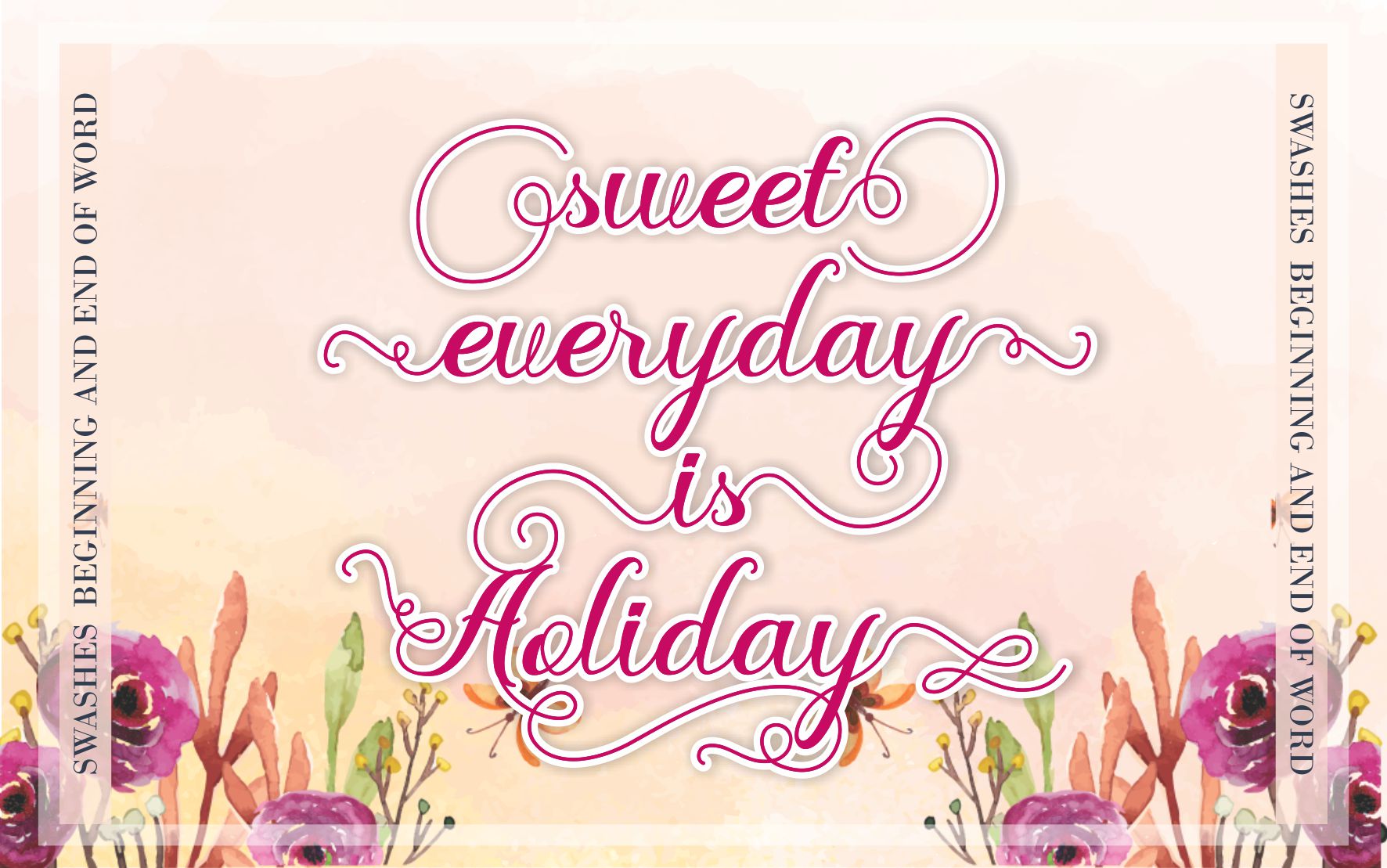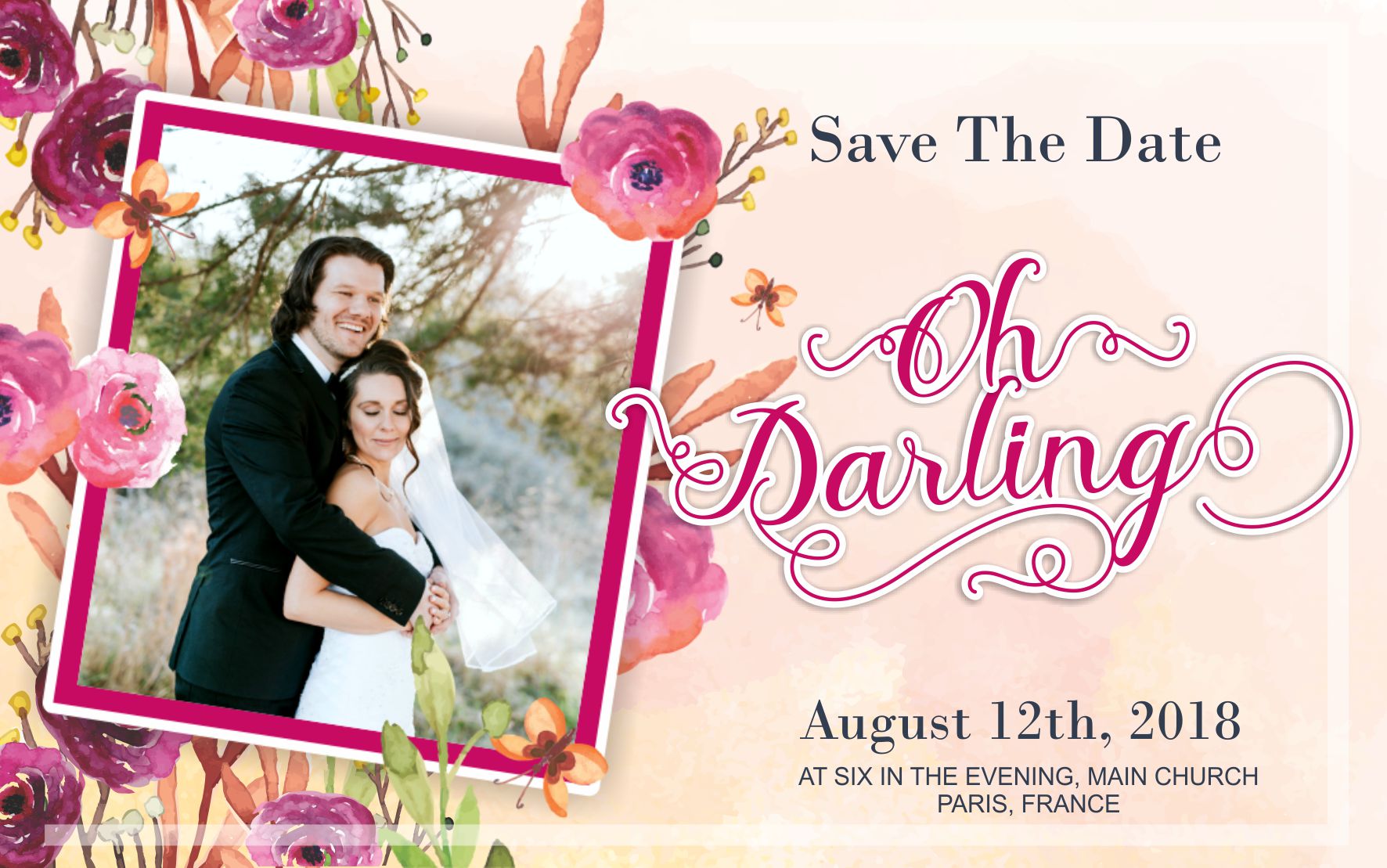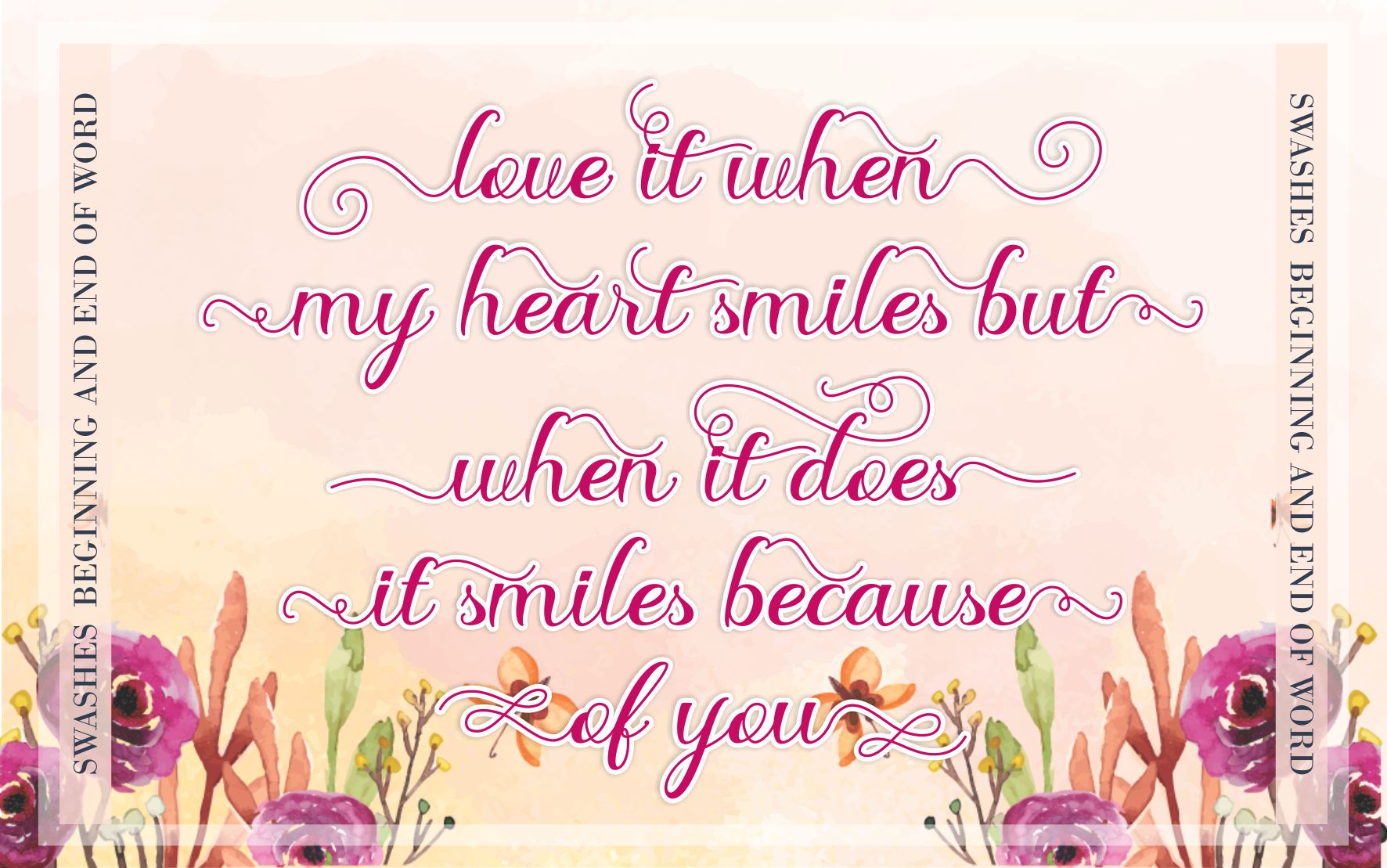
Delima Font
Delima is a connecting script with dancing baseline, designed to convey elegance and style. It is clean, feminine and friendly. Works perfectly for a wide range of delicate and feminine projects.